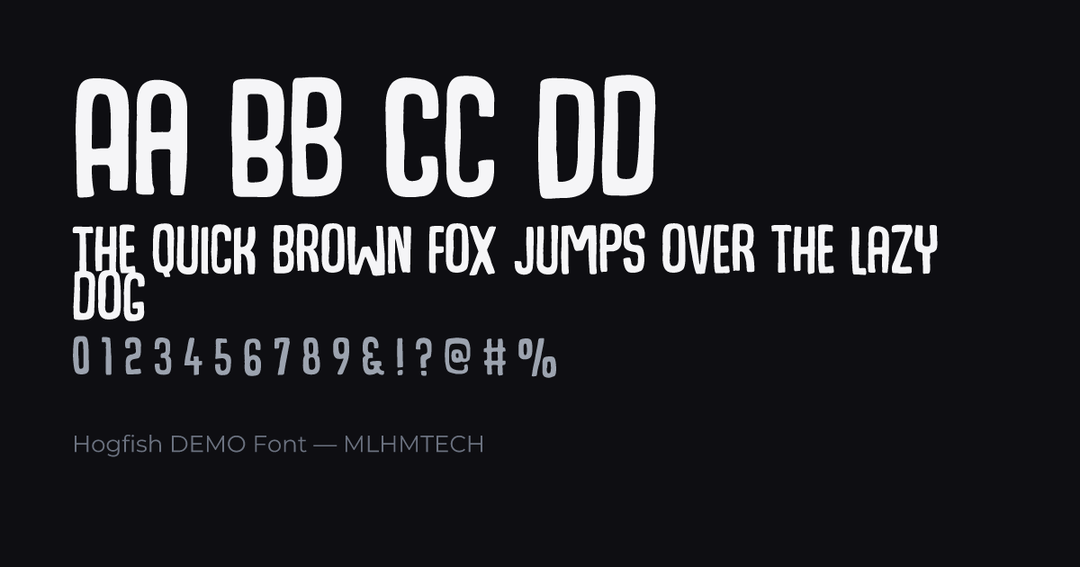
Hogfish DEMO Font
Hogfish DEMO is a distinctive display font that adds a handcrafted, organic feel to any project. Ideal for logos, posters, and branding.
Hogfish DEMO is a unique display font with a handcrafted, organic character. Its irregular strokes and playful curves make it perfect for adding a personal touch to logos, posters, and branding materials. This demo version allows you to test its style before licensing the full family.
Whether you're designing a vintage-inspired label, a modern editorial layout, or a quirky social media graphic, Hogfish brings a sense of authenticity and charm. Its versatility shines in both large and small sizes, ensuring legibility without sacrificing personality.